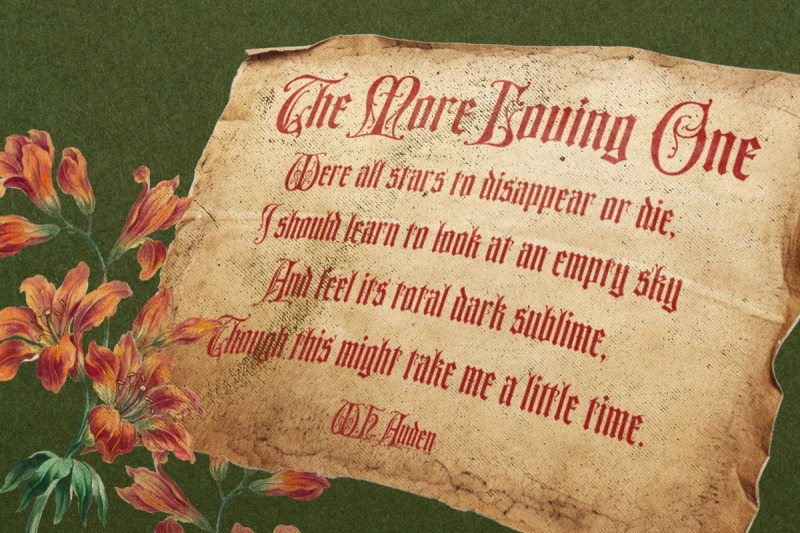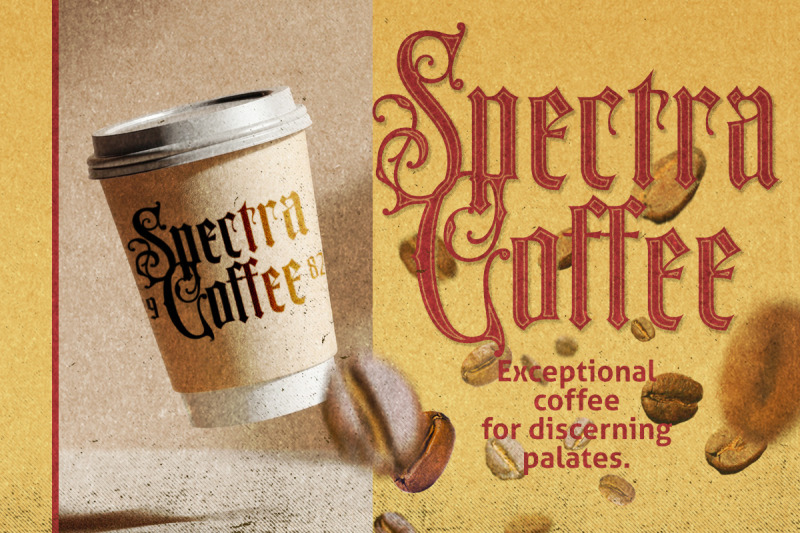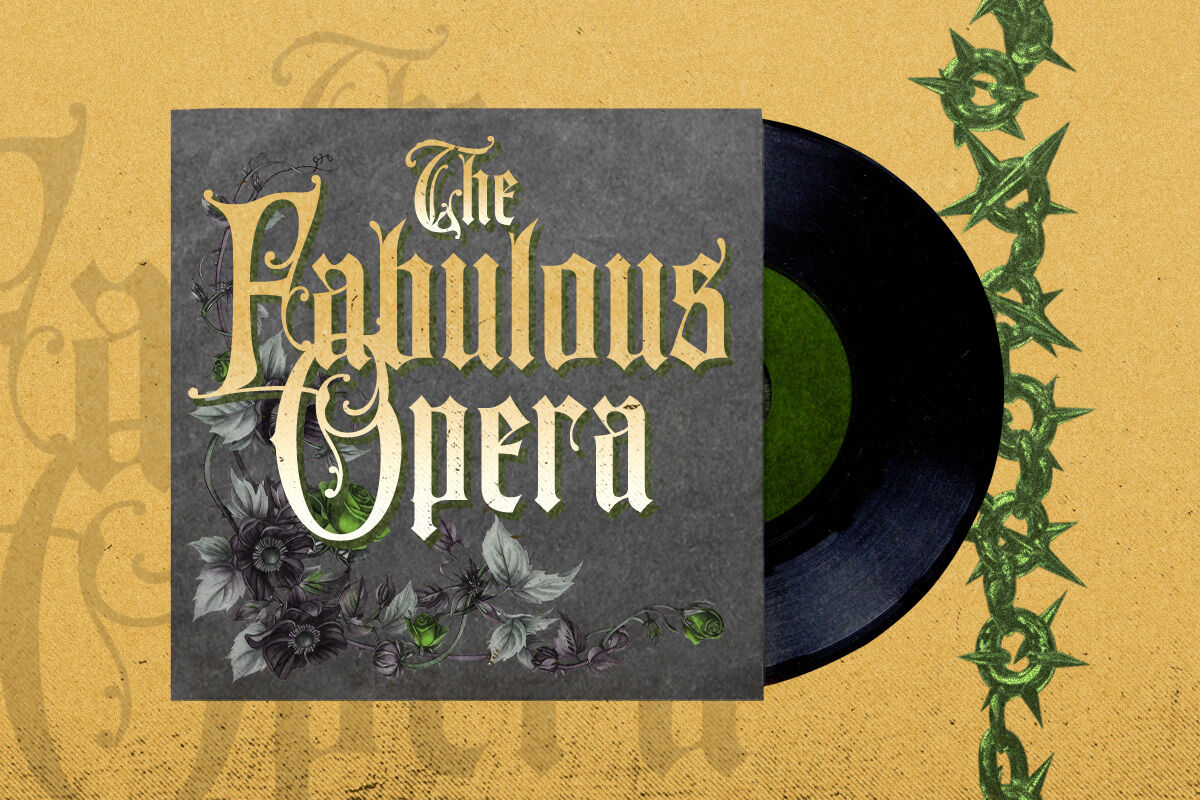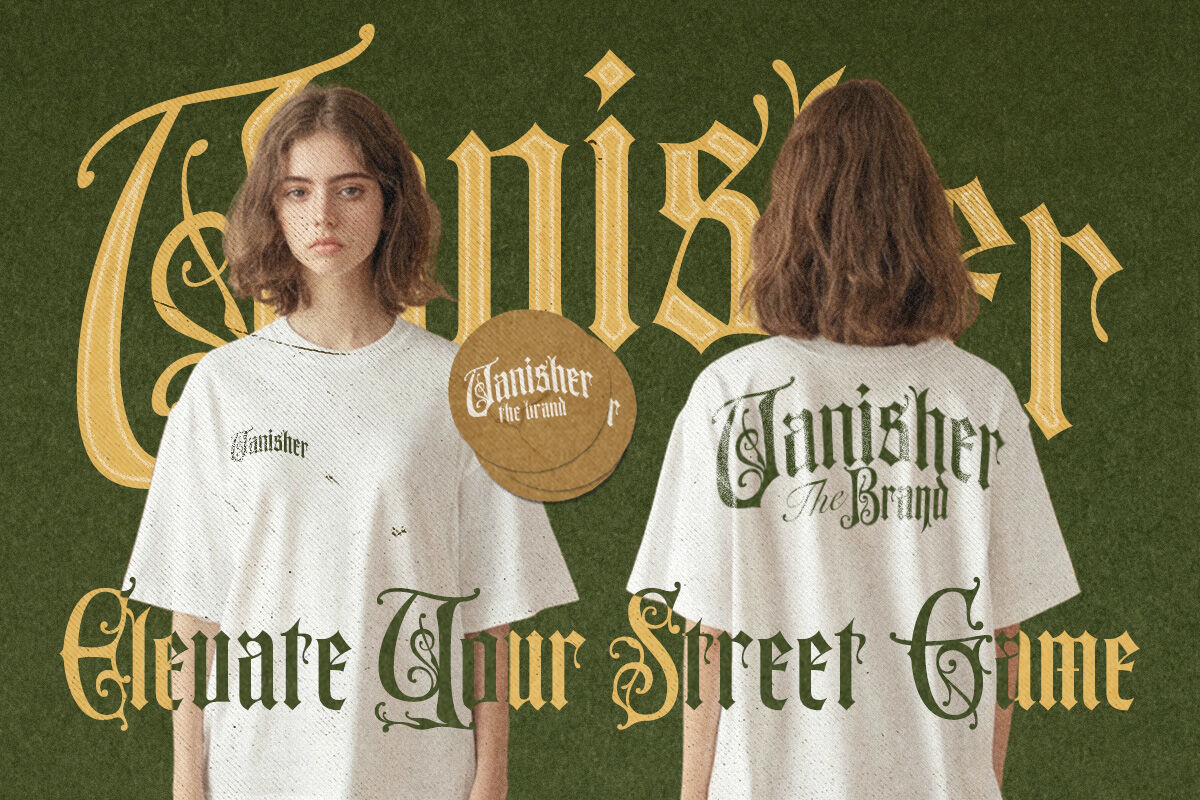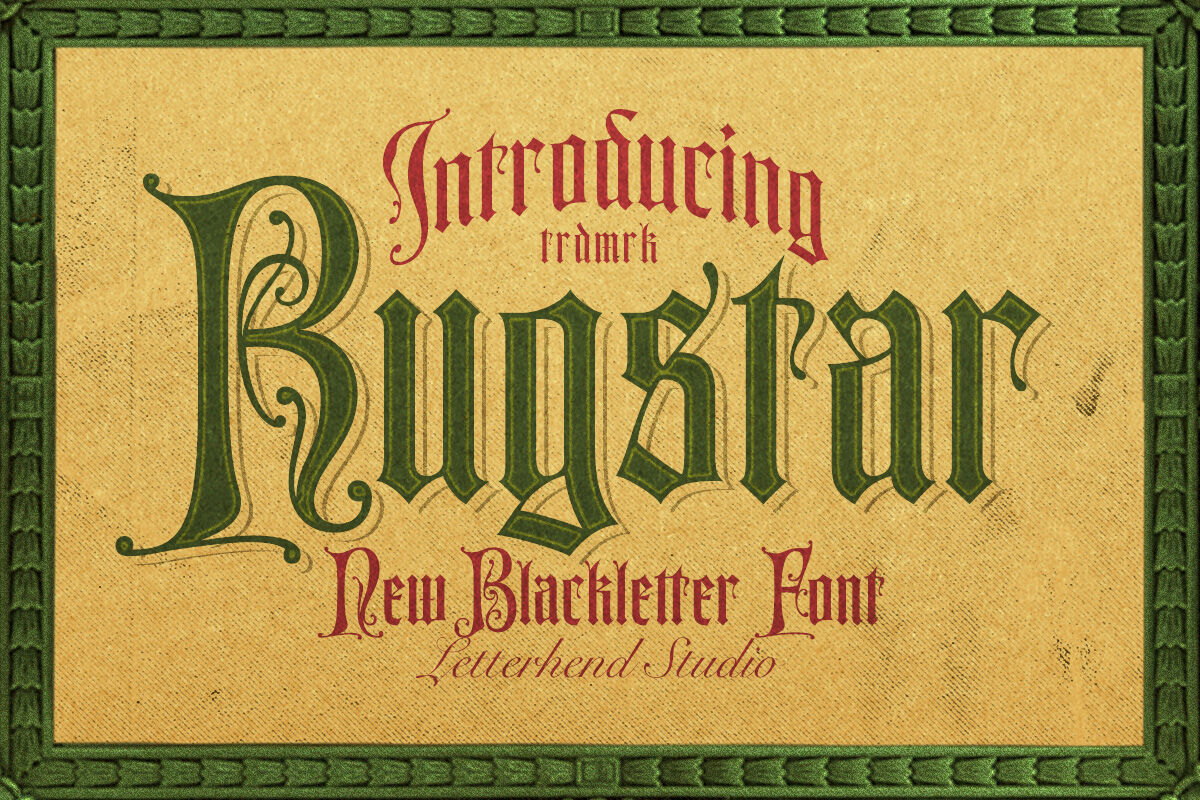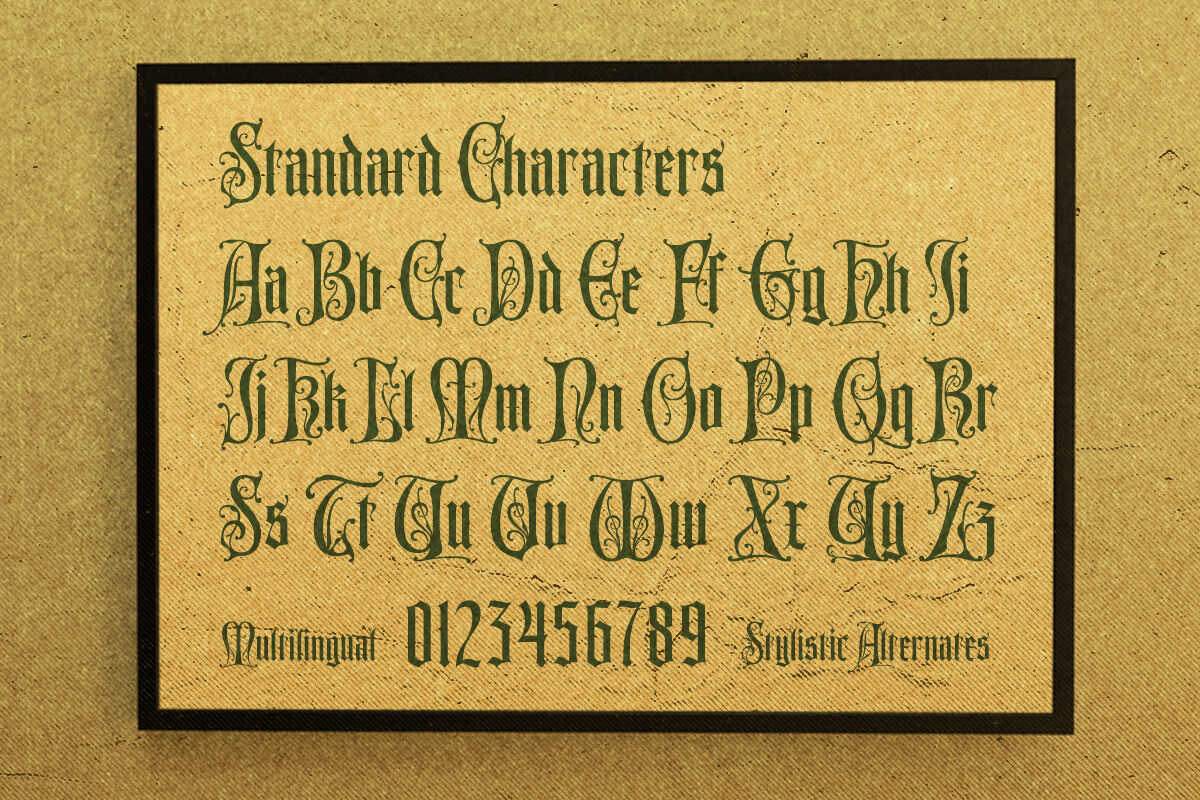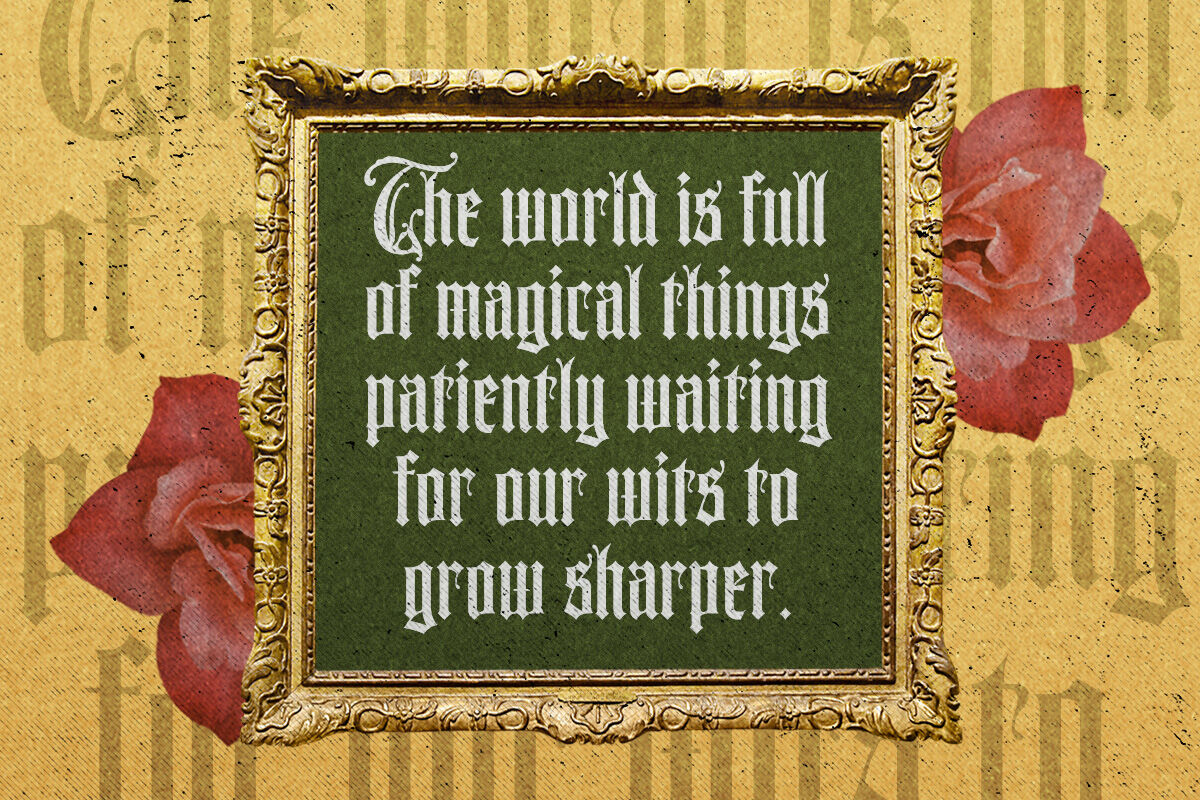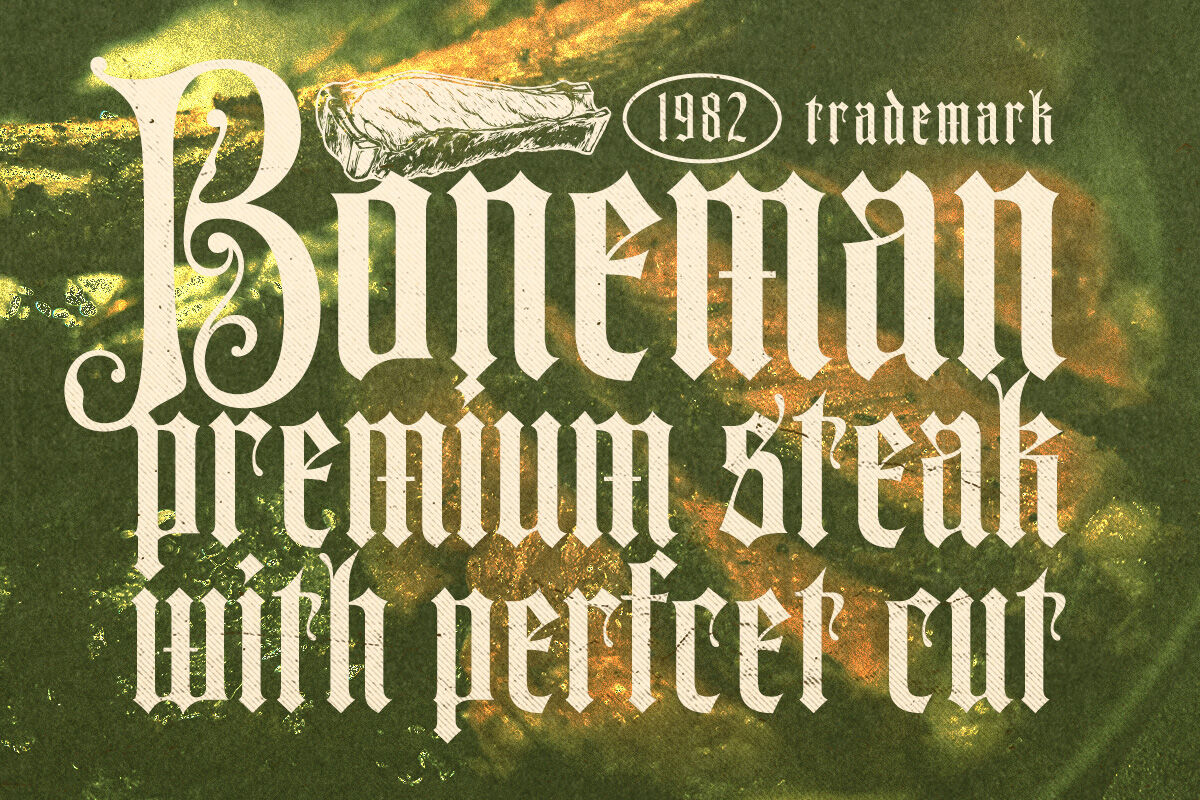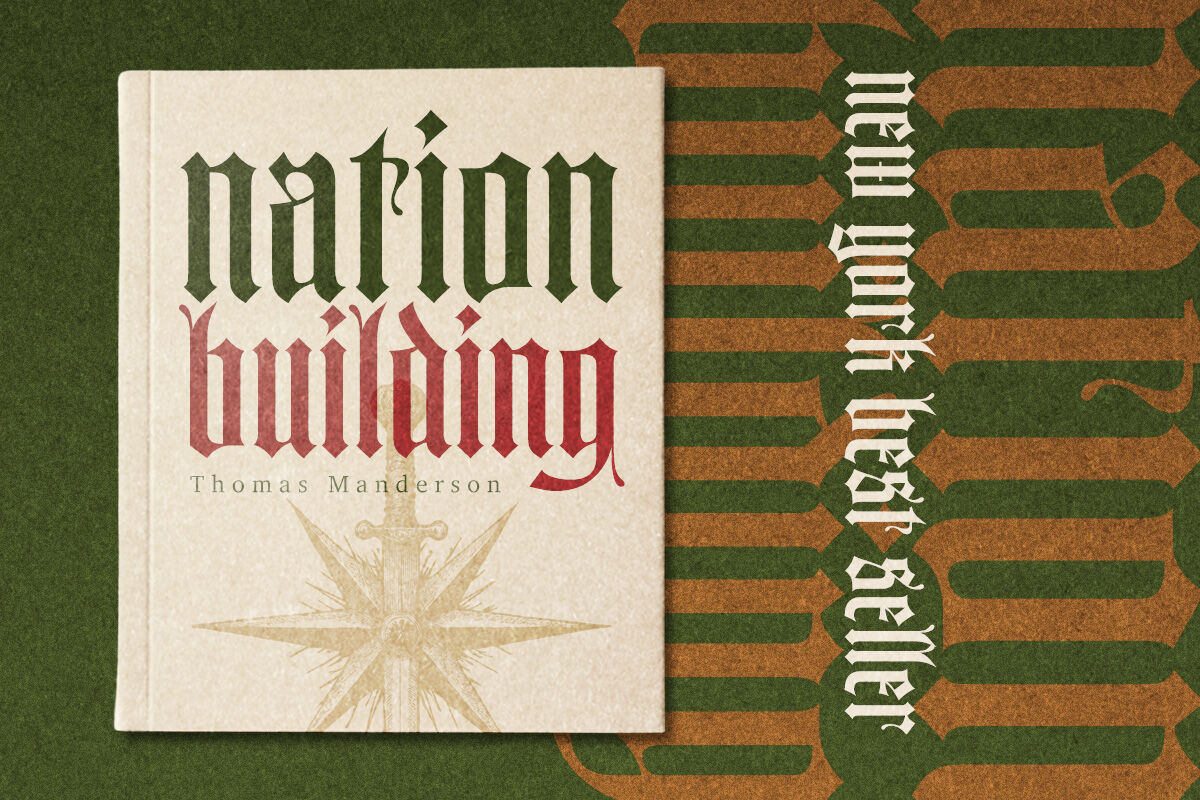
Rugstar is a meticulously crafted blackletter typeface that captures the spirit of classic calligraphy and medieval design. With its tall, ornate letterforms and dramatic serifs, it evokes a sense of mystery, authority, and elegance. Ideal for wine labels, book covers, vintage logos, metal band merchandise, or any design that needs a bold and timeless voice with gothic flair.
Uppercase & lowercase
Numbers and punctuation
Alternates & Ligatures
Multilingual Support